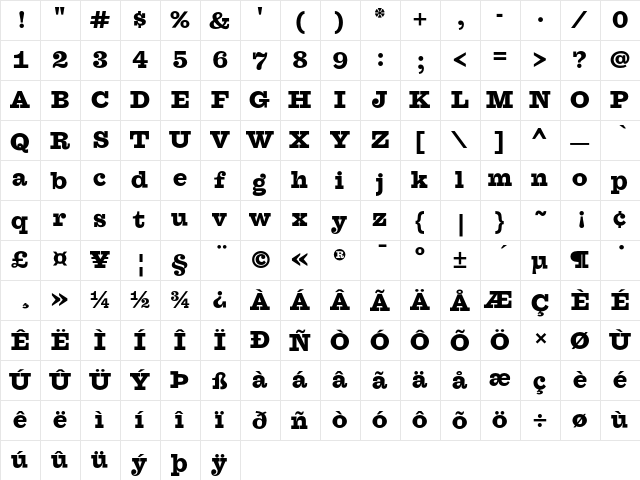
Farao Black OT Regular
| Foundry | Frantisek Storm, stormtype.com |
| Designer | Frantisek Storm |
Design Context for Farao Black OT Typeface
Farao Black OT offers clean, dependable letterforms without strong stylistic allegiance, making it a practical choice for designers who need flexibility.